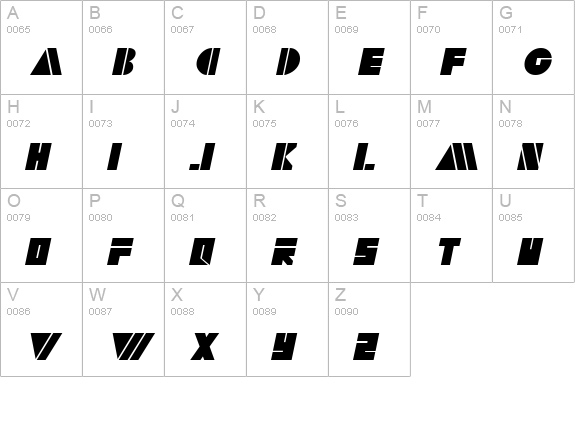
RialtoSCapsSSK BoldItalic Font Details
RialtoSCapsSSK BoldItalic font is the epitome of elegance and modernity. With its bold and italicized characters, this font exudes confidence and sophistication, making it perfect for a wide range of design projects. The sleek curves and sharp edges of each letter create a visually striking impact, capturing attention and leaving a lasting impression. But what sets RialtoSCapsSSK BoldItalic font apart is its versatility. Whether you're designing a logo, a poster, or a website, this font effortlessly adapts to any context, adding a touch of professionalism and style. It brings a sense of class and refinement to any project it's used in, instantly elevating the overall aesthetic. And the best part? RialtoSCapsSSK BoldItalic font is completely free! That's right, this stunning font is freely available to download at FontsMarket.com. Now, you can enhance your designs without breaking the bank. With just a few clicks, you can add this remarkable font to your collection and unlock endless design possibilities. So why wait? Don't miss out on the opportunity to enhance your projects with the striking beauty of RialtoSCapsSSK BoldItalic font. Download it for free at FontsMarket.com and let your creativity soar.